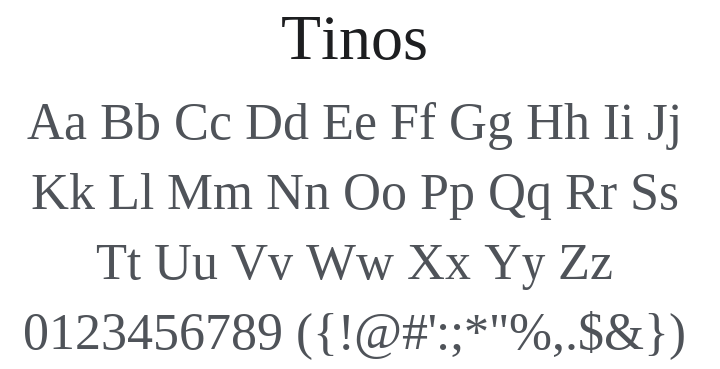
Tinos Font Family
About Tinos
Tinos was designed by Steve Matteson as an innovative, refreshing serif design that is metrically compatible with Times New Roman™. Tinos offers improved on-screen readability characteristics and the pan-European WGL character set and solves the needs of developers looking for width-compatible fonts to address document portability across platforms.